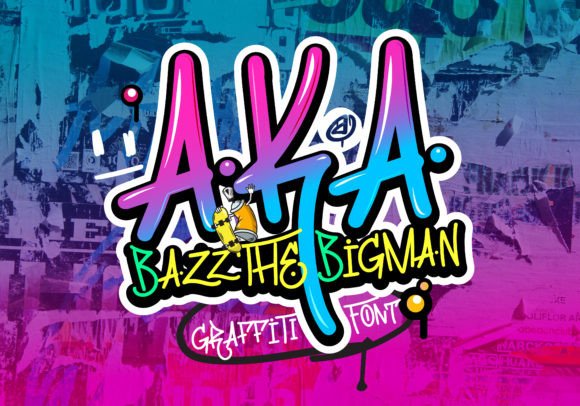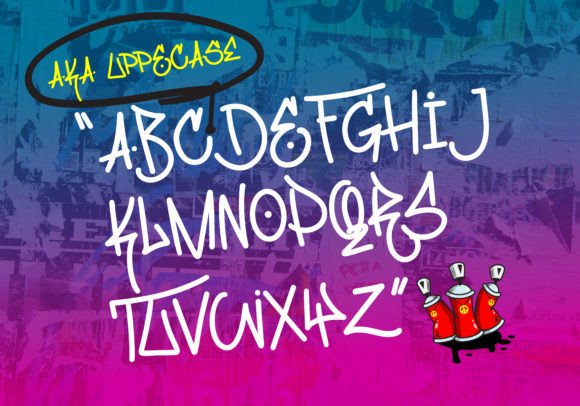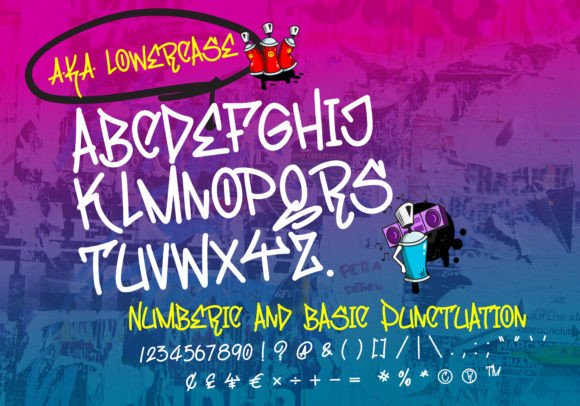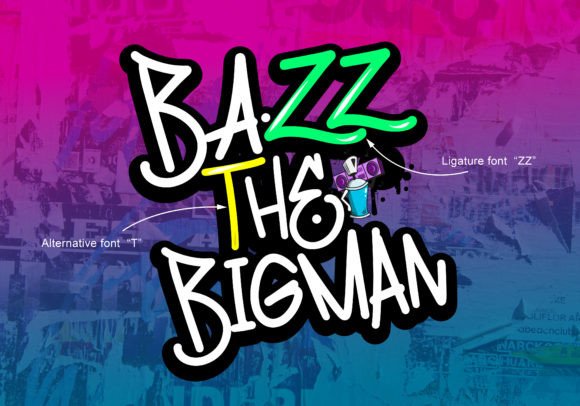
Aka Font
About the Aka Font
Step up your design game with Aka Font, a font that exudes confidence and style. AKA is an awesome graffiti-styled display font that has a cool street art vibe. This font is suitable for designs such as t-shirts, sportswear, logos, advertisements, clothing, and more.
Aka Font’s strong, graphic nature makes it ideal for headlines, short impactful statements, and branding projects needing a bold, rebellious edge. It excels in applications like posters, streetwear designs, and logos where its graffiti-inspired aesthetic shines. However, its low x-height and irregular letterforms make it unsuitable for body text or UI elements requiring high readability.
Pairing Aka Font with a clean sans-serif like Open Sans for body copy creates a strong contrast, balancing the font’s energy with easily readable text. Alternatively, a geometric sans-serif like Montserrat would provide a modern counterpoint, while a classic serif like Garamond could add a touch of unexpected sophistication.
Aka Font projects a bold, rebellious, and energetic personality. It’s best suited for brands targeting a young, urban demographic that appreciates street art and a visually striking aesthetic.